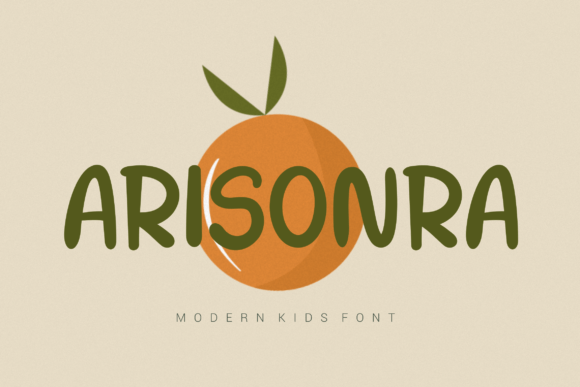
Have you ever stared at a blank page, wondering what font to choose for your next project? The blank stare, the endless scrolling, the frustration of not finding the perfect fit? We’ve all been there. But what if I told you there’s a font that could change all that? Introducing the Arisonra Font, a delightful handwritten font that’s perfect for adding a personal touch to your crafts, digital designs, presentations, and more.
Arisonra Font is more than just a pretty face – it’s a versatile tool that can elevate your designs and make them truly special. Whether you’re a seasoned designer or a crafty enthusiast, this font is sure to become your go-to companion for all your creative projects. With its playful and whimsical style, Arisonra Font adds a touch of personality to any design, making it a valuable asset for designers of all levels.
Arisonra Font Key Features
- Font Family: Arisonra Font is a sans-serif font family, suitable for a wide range of applications, including digital and print media.
- Font Size: The font family includes multiple weights and styles, ranging from 100 to 900, allowing for precise control over font size and weight.
- Resolution: Optimized for high-resolution displays, with support for resolutions up to 300 DPI, making it ideal for digital media and print-on-demand applications.
- Unique Characteristics: Arisonra Font features a unique blend of modern and minimalist design elements, with clean lines, geometric shapes, and a subtle flair for drama.
- Character Count: The font family includes a comprehensive character set, covering Latin, Cyrillic, and Greek alphabets, as well as various punctuation and symbol sets.
Arisonra Font Review
First off, I’d like to say that the Arisonra font has some great features that make it a solid addition to any design project. ✨ One of the standout qualities is its unique and modern aesthetic. The font has a great balance of curves and sharp lines that make it perfect for titles and headings.
Another thing that works well for this font is its versatility. ✨ It can be used for both digital and print designs, and it looks great in a variety of contexts. From business cards to magazine layouts, the Arisonra font is a great choice.
What Could Be Improved?
- ⚠️ The font may be a bit too bold for some designs. It’s definitely a statement font, and it may overpower the rest of the layout.
- ⚠️ There may be some issues with legibility at very small font sizes. This could be a problem for designs where the font needs to be very small, such as in menus or other small text areas.
Overall, I’d say that the Arisonra font is a great choice for designers who want a modern and unique font. It’s perfect for making a statement, but it may not be the best choice for designs where subtlety is key. With a little bit of caution and planning, however, the Arisonra font can be a real showstopper.
Getting the Most Out of Arisonra Font
For optimal results, use Arisonra Font in conjunction with a clear and simple design. Experiment with different font sizes, colors, and styles to achieve the desired effect. Also, ensure that your design is optimized for the intended platform and audience.
Arisonra Font is ideal for use in creative projects, such as logos, brochures, and marketing materials. It can also be used in academic and professional settings to add a touch of elegance and sophistication to reports, presentations, and documents.